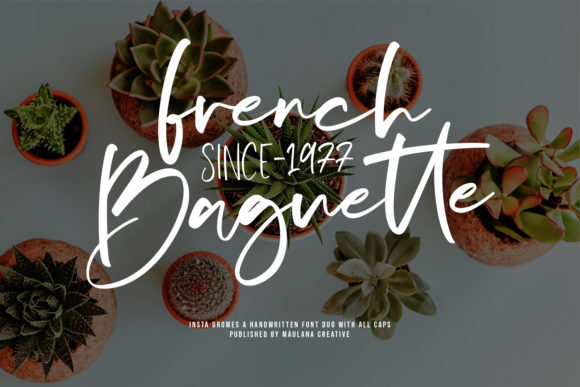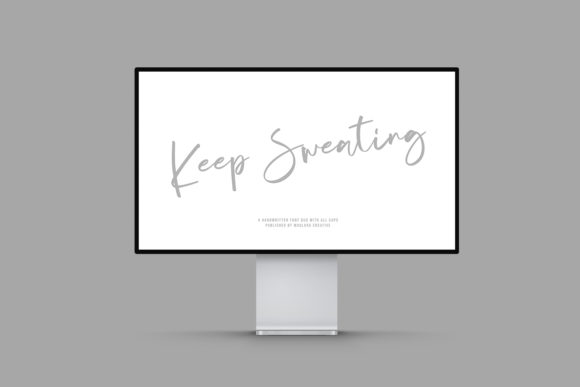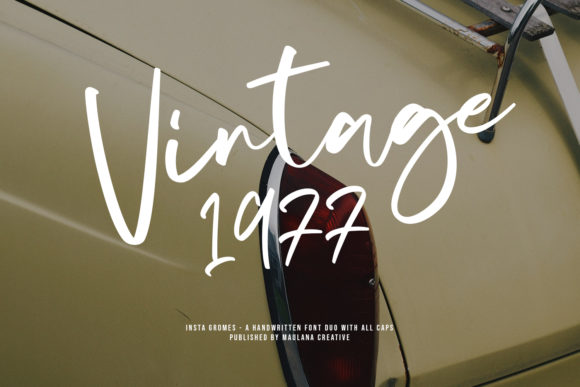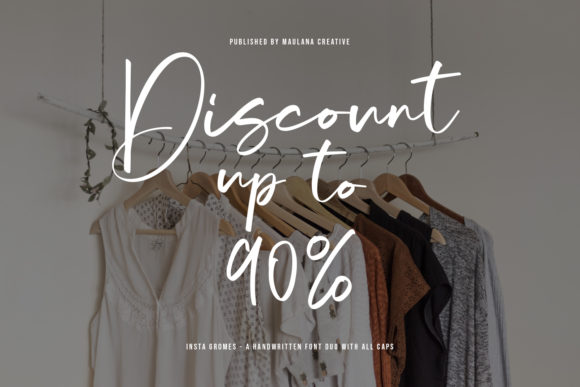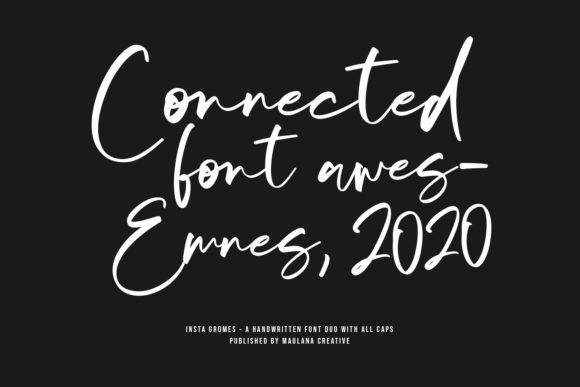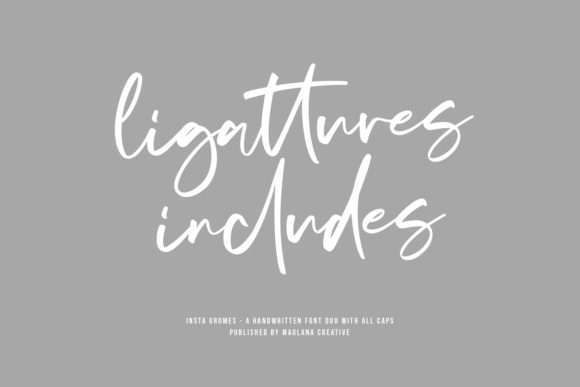
Introduction to Insta Gromes Font
Insta Gromes results out of a stunning pairing of a brush pen and pencil that makes it look incredibly endearing and authentic.
Use this gorgeous and unique handwritten font to bring any DIY project to life .